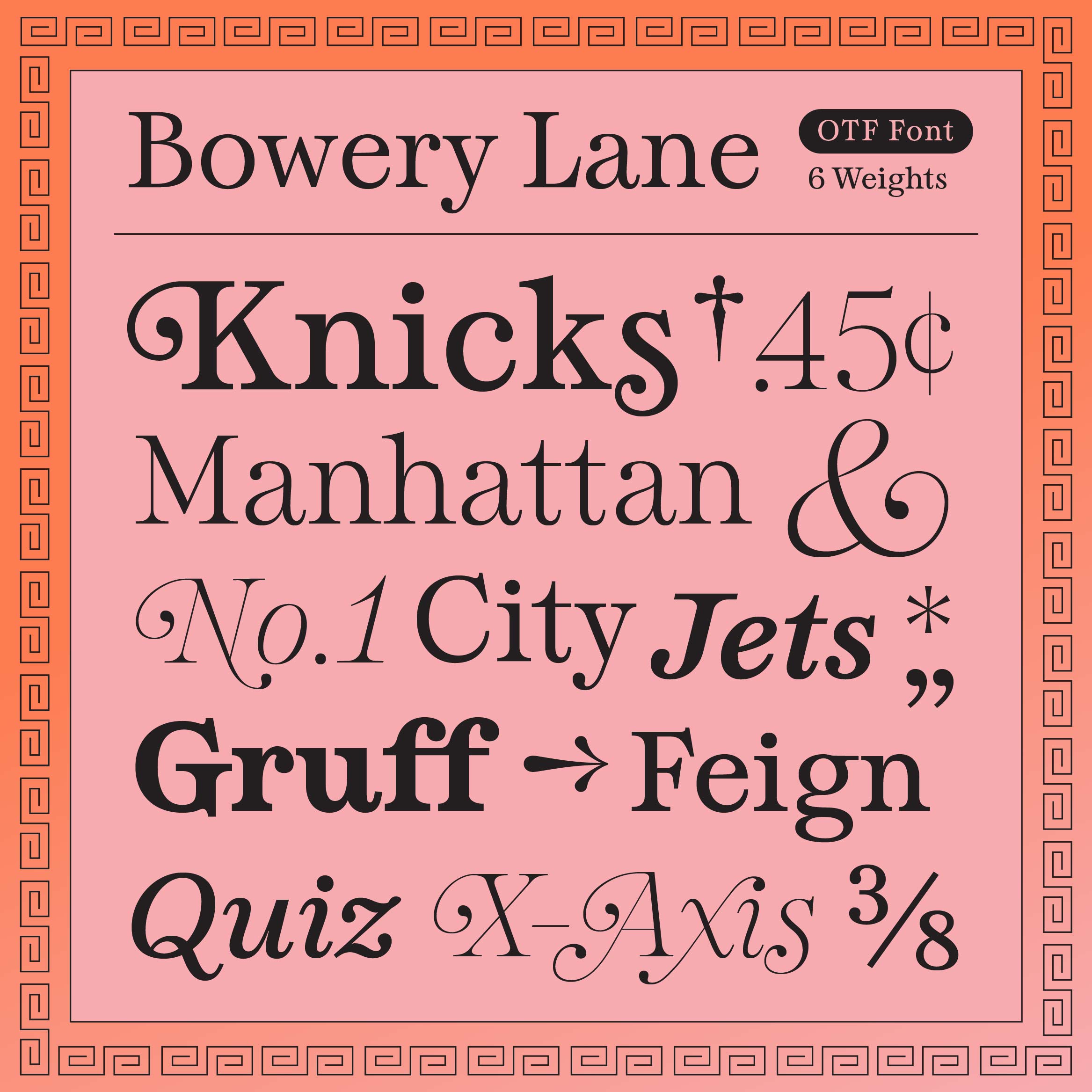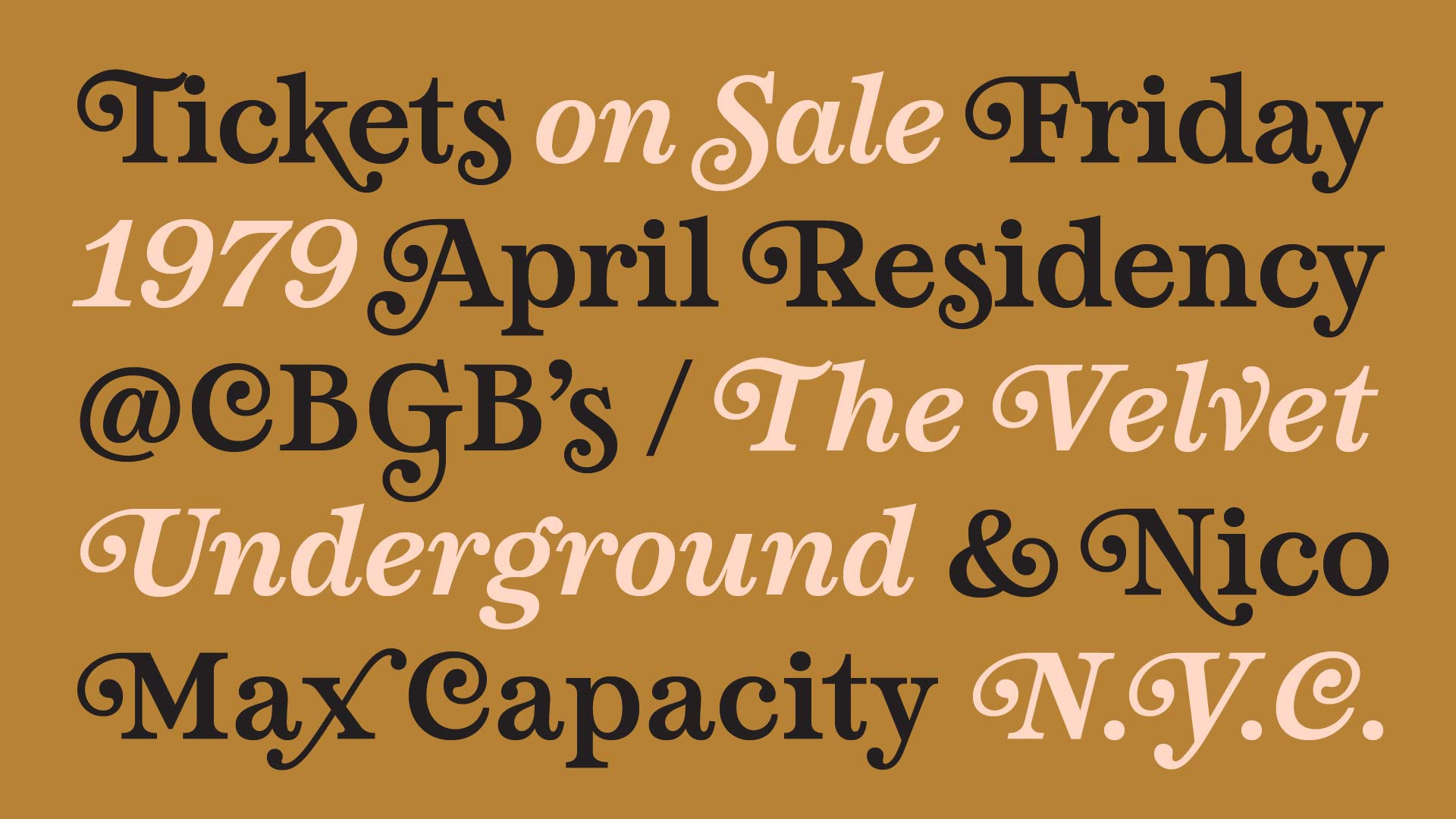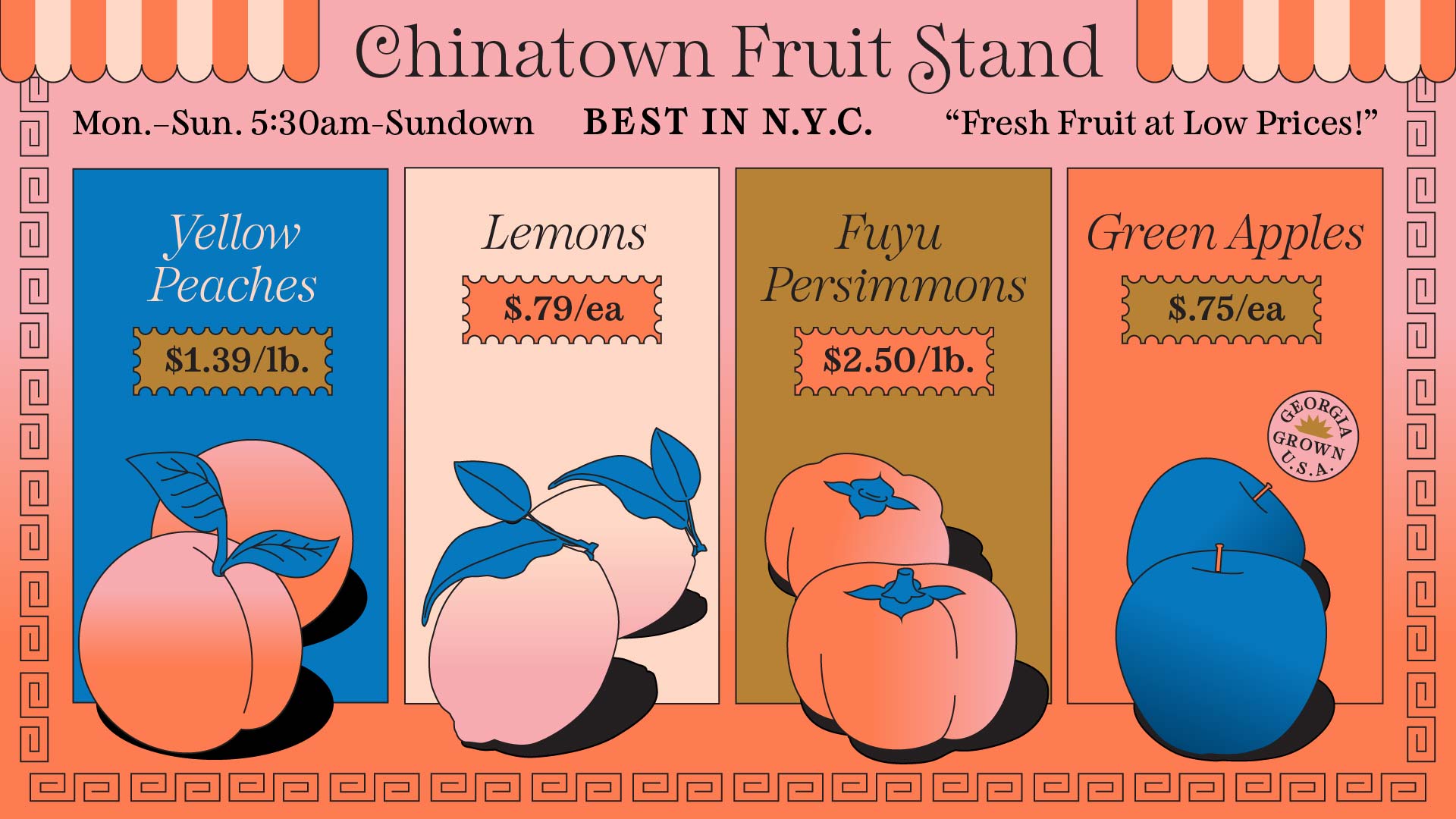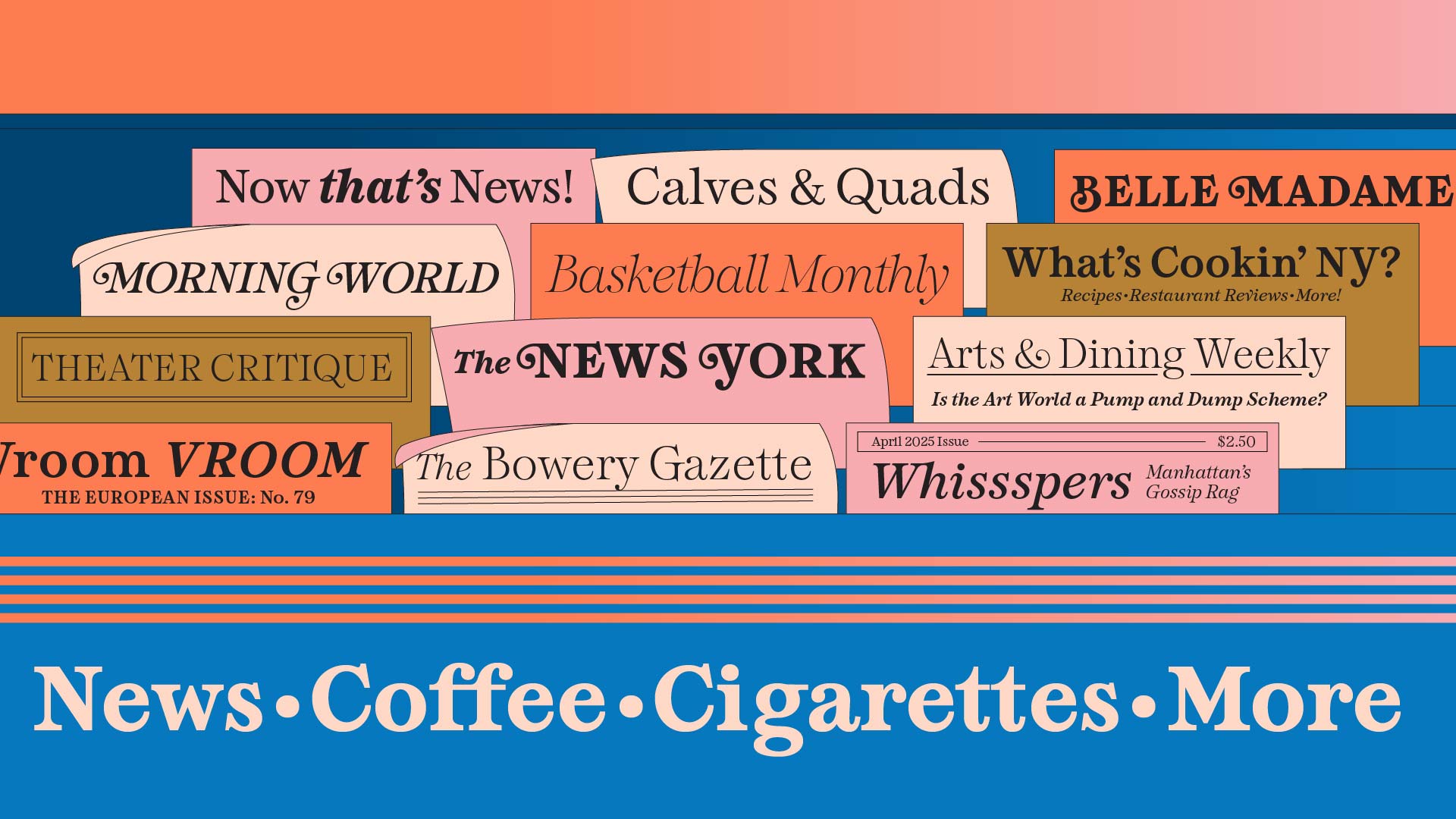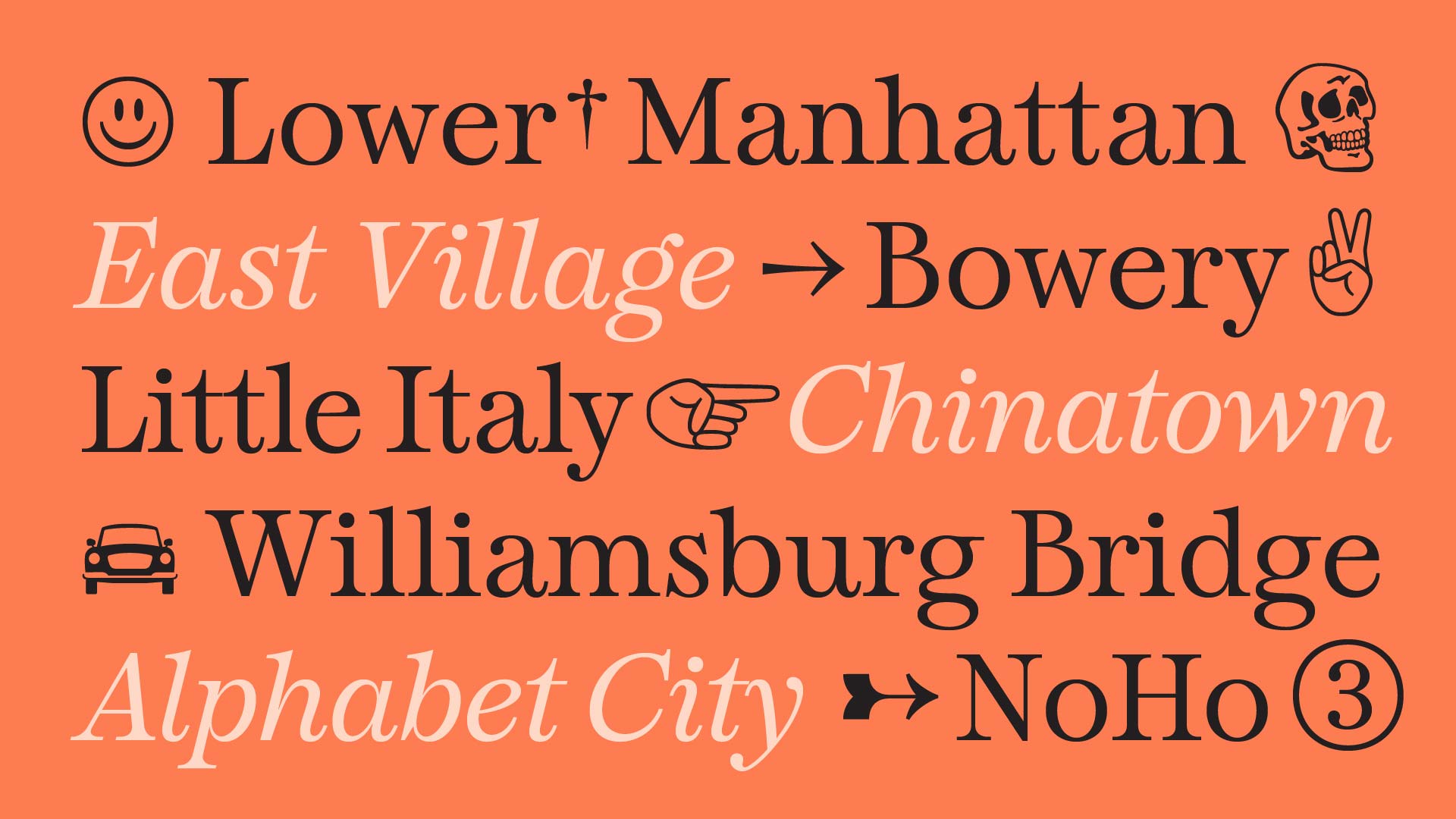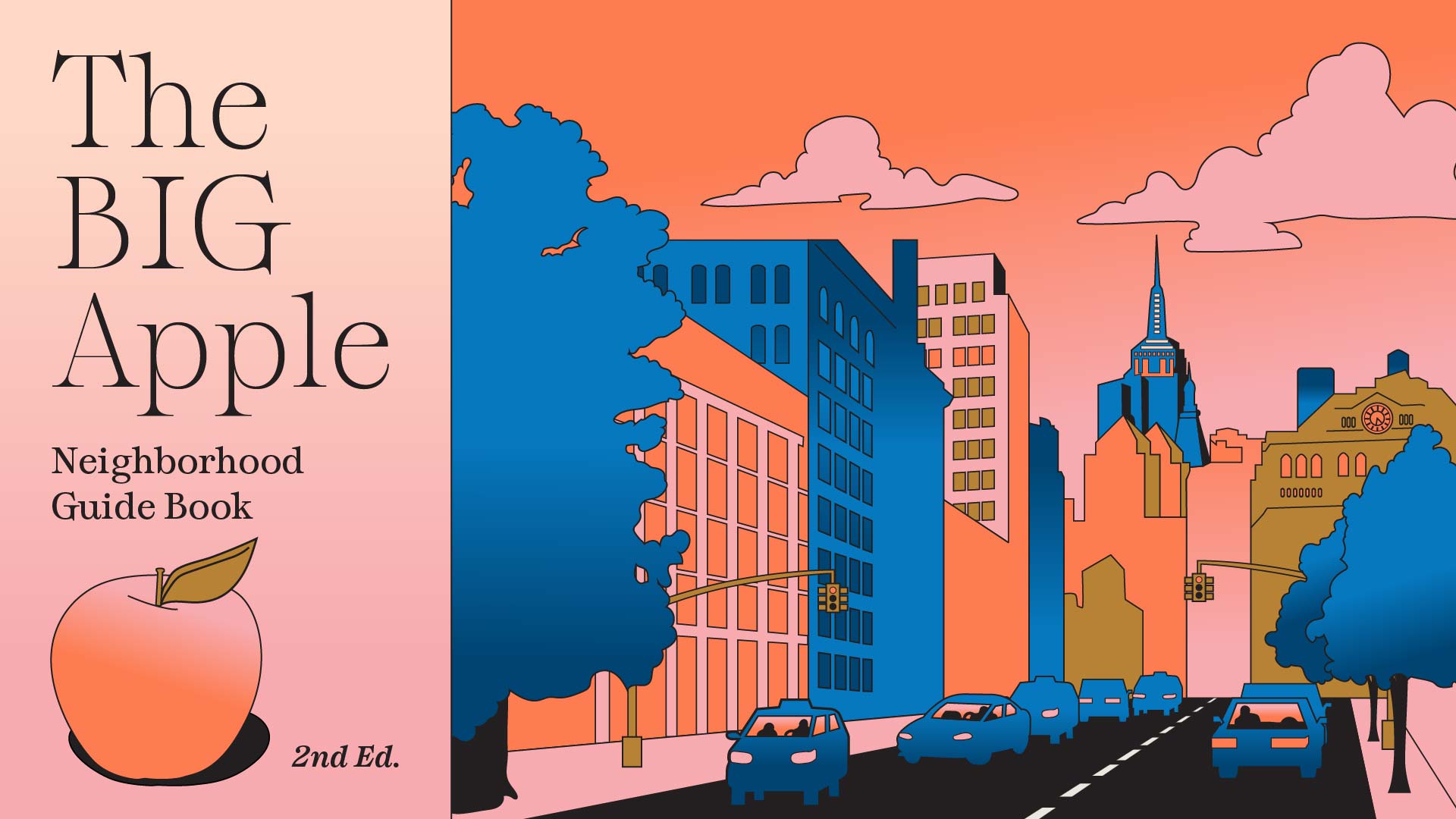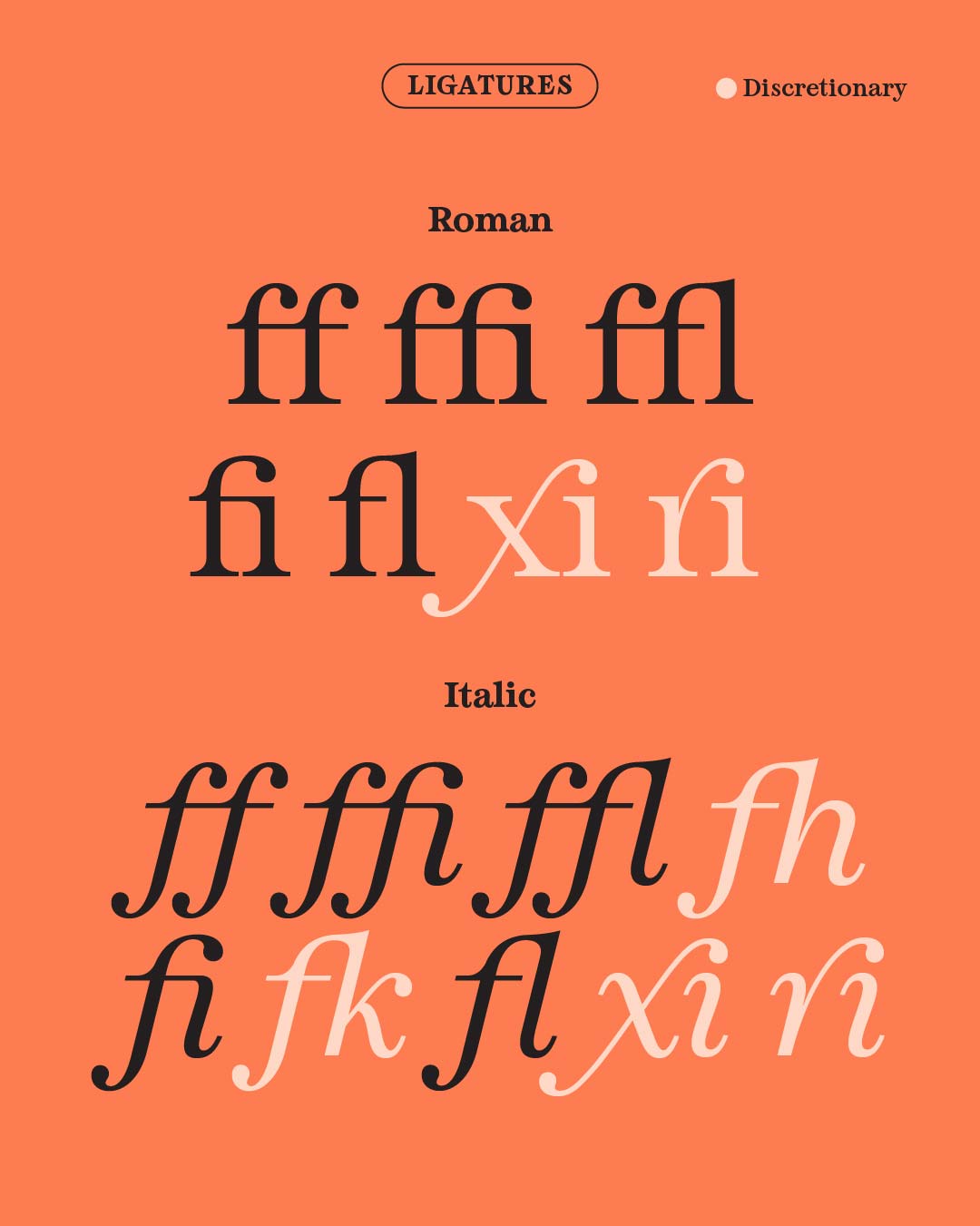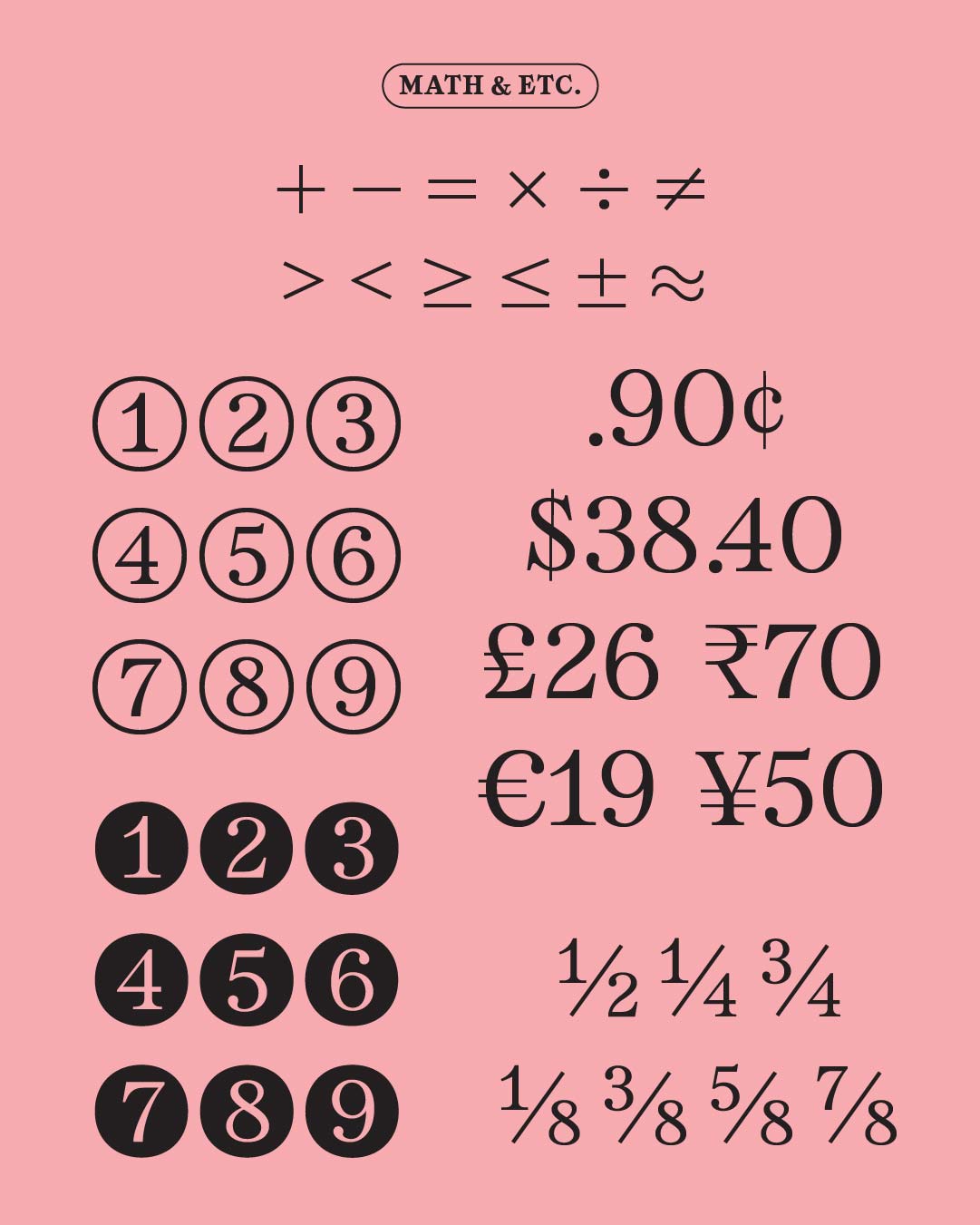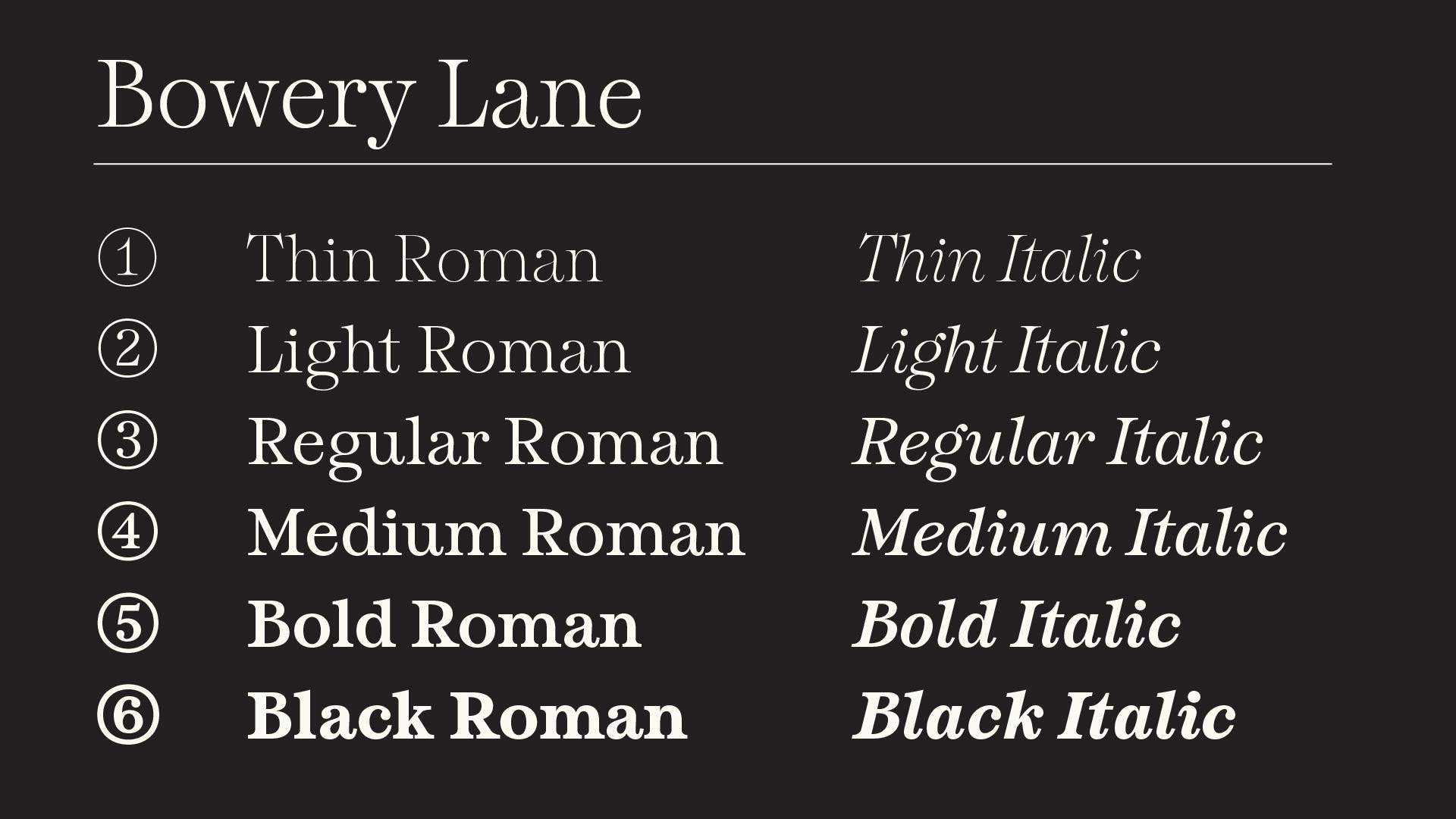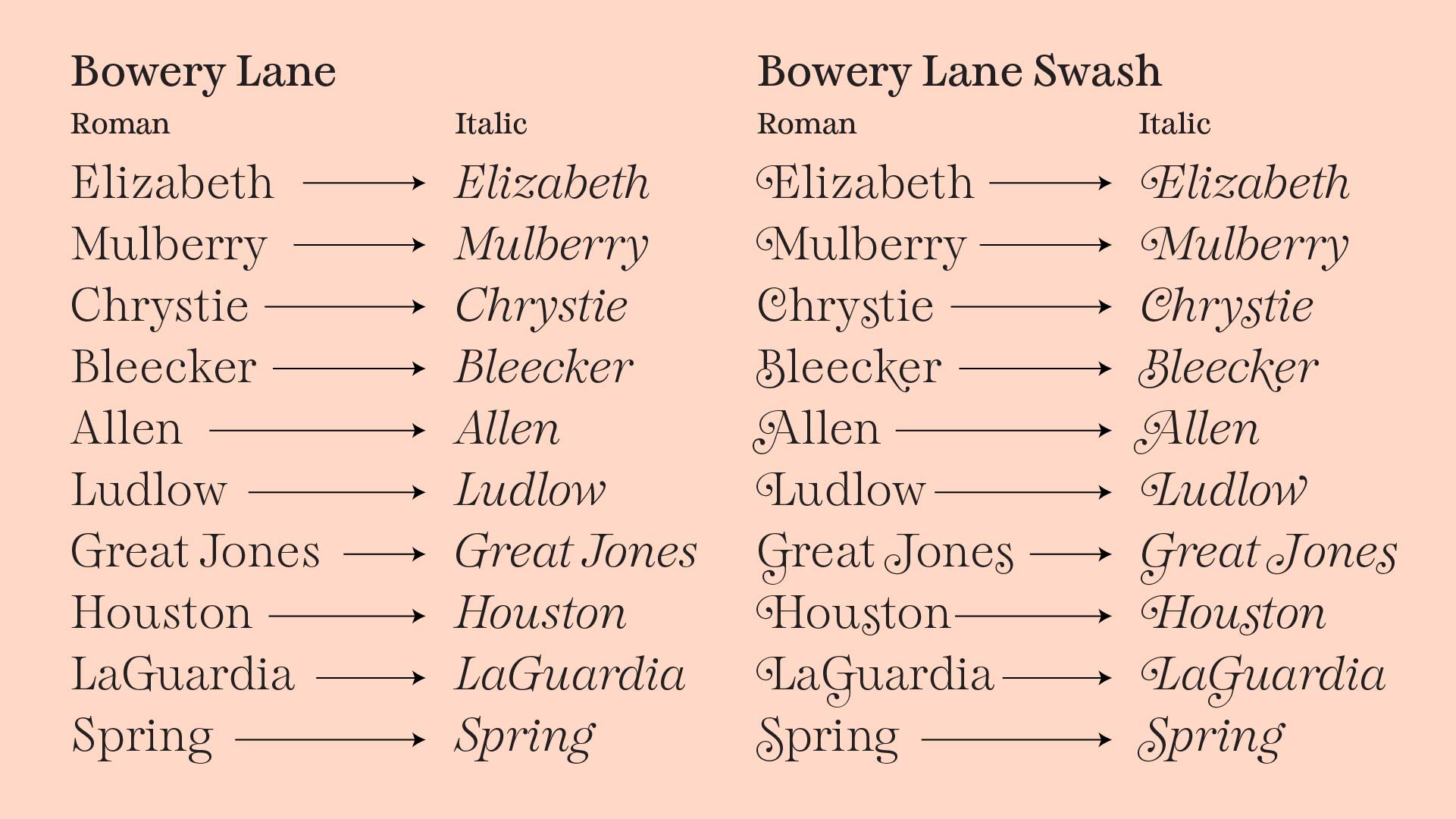
Bowery Lane
Meet Bowery Lane font, a medium contrast serif typeface in 6 weights, italics, and curl swash alternates.
Hey! Amy Hood here. I have long wanted to make an elegant, lower contrast, exaggerated serif font. Like if Clarendon and Georgia had a love child. Something unique but highly usable. So, I made Bowery Lane. Bowery Lane font is somewhere between a Scotch Modern, Transition, and Slab serif.
When you use the default character set of Bowery Lane font, it looks confident, classic, and bold, like the area of New York City the font gets its name from. The moderate contrast makes the font very usable, even at smaller sizes. But just when you think you know what Bowery is about, you turn on the curl swash alternates and feel as if you’ve stepped into the New York of You’ve Got Mail. Bowery, NYC, is a cultural quadrangle, at the intersection of four boroughs and two bridges, with centuries of history and reinventions, all emanating from 1 iconic street. This font aims to have a similar breadth of character and broad usability.
Over the din and clatter of the bakery she said, “Gimme a Bacon, Egg, and Cheese on a Sesame Bagel.”
The Bowery was once a theater district in the 1800s. From the 20th century on it was a skid row, a lighting district, a creative hub, and more.
Bowery Lane font includes multiple swash style sets. Where Bookmania’s swashes have a relaxed, retro/nouveau feel, and Caslon’s swashes have an old money elegance, Bowery Lane’s swash style lies somewhere in the middle: round and whimsical, like the wrought iron details on the Vanderbilt Gate in Central Park. Not only does Bowery Lane offer swash alternates for the italic styles, it also offers them for the roman styles too.
I’m obsessed with the defining characters that make a typeface recognizable. Futura’s pointy /A; GT Alpina’s upside down /s. I am very intentional about having such recognizable characters in my own typefaces. Here’s a look at those defining characteristics in Bowery Lane font:
• Exaggerated cross strokes on the /G and /J.
• Pronounced spurs on letters with beaks like /C, /G, /E, /F, /G, /T, and /S.
• Ball terminals all over the place.
• Curled tails on the /a and /u. Angled beaks on the upper and lowercase /S.
• A tail on the uppercase /Y like you see on the lowercase /y. (Inspired by The New Yorker wordmark which I have always loved)
• Pronounced barb on the stem of the /G.
• Overall the characters are round and—dare I say—“buxom.”
Gyro with Extra Tzatziki
• Language Support: Most Western and Central European characters.
• Numerals, fractions, currency symbols, and punctuation.
• Fun extras like smiley faces, circle numbers, arrows, stars and more.
• Swash Alternates